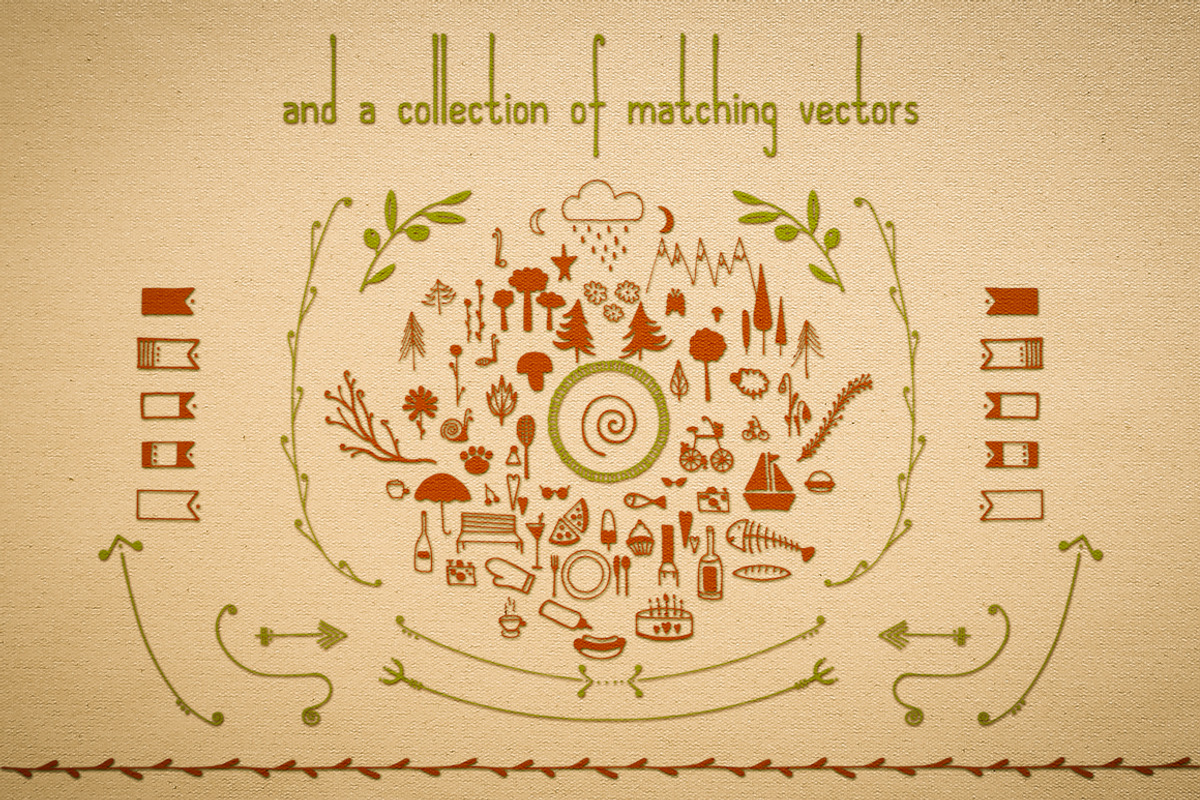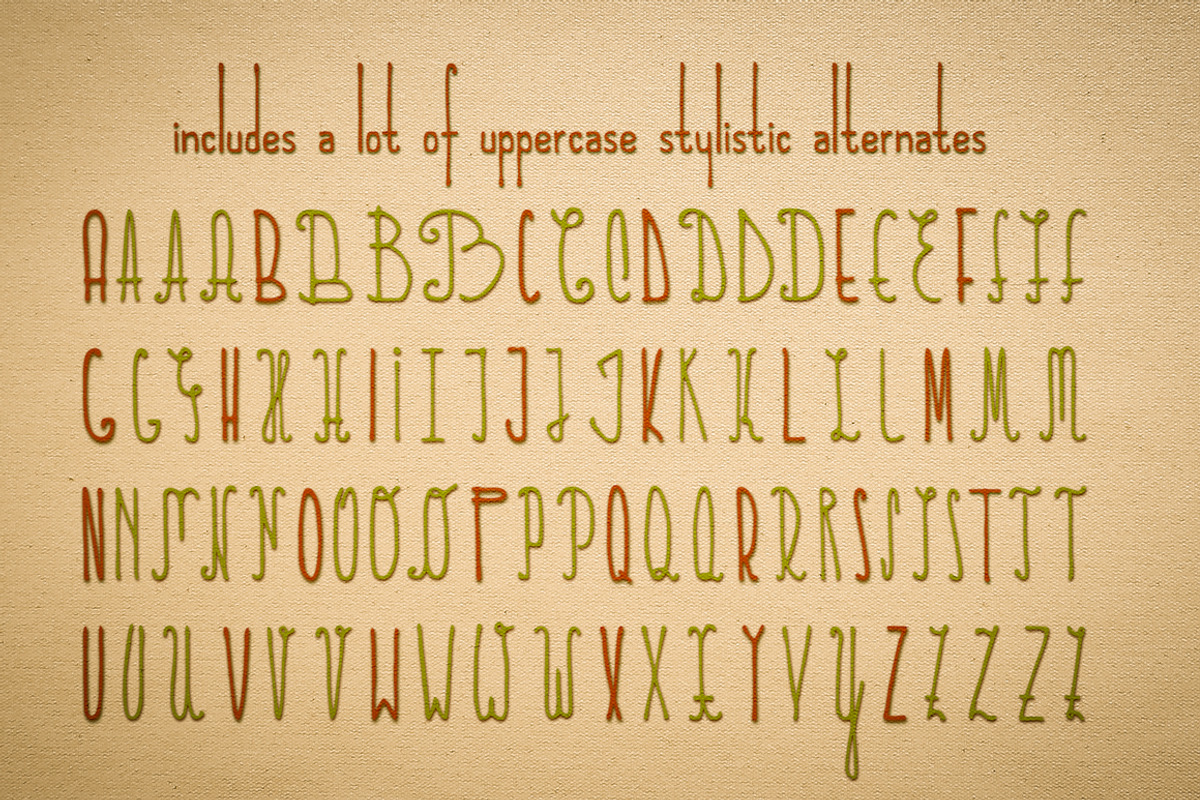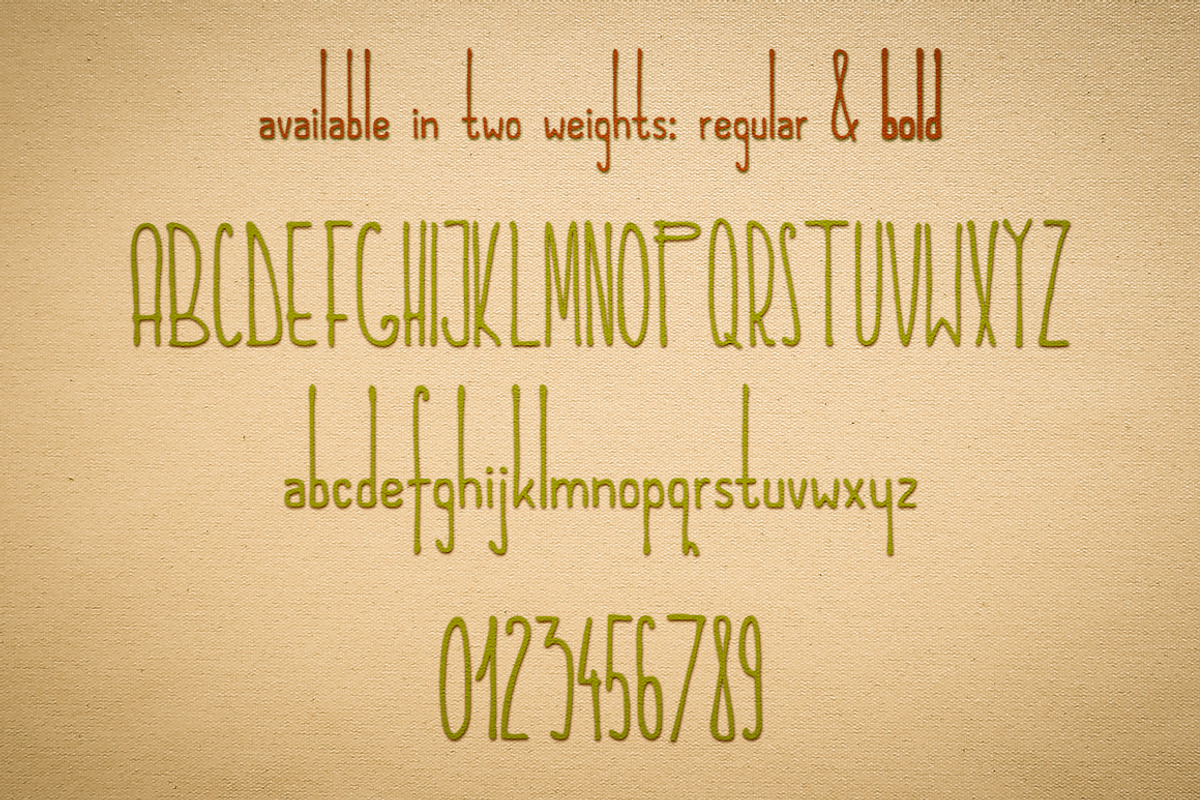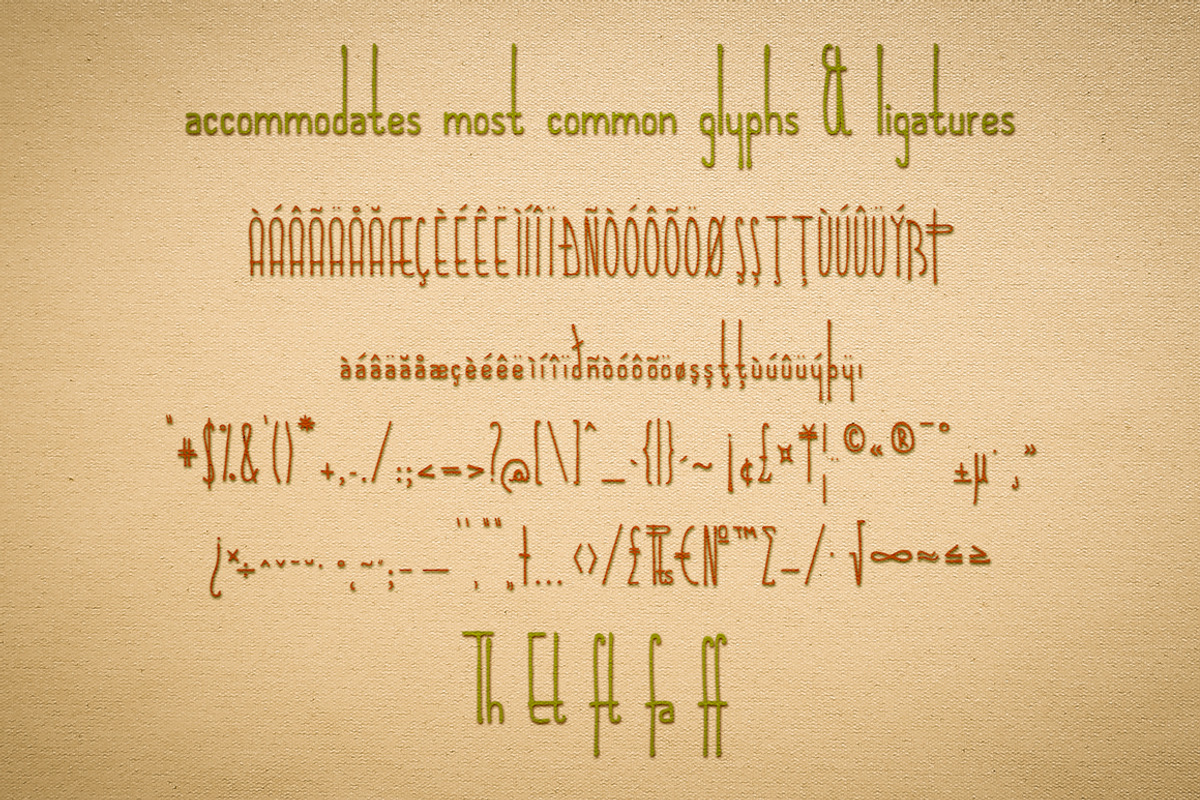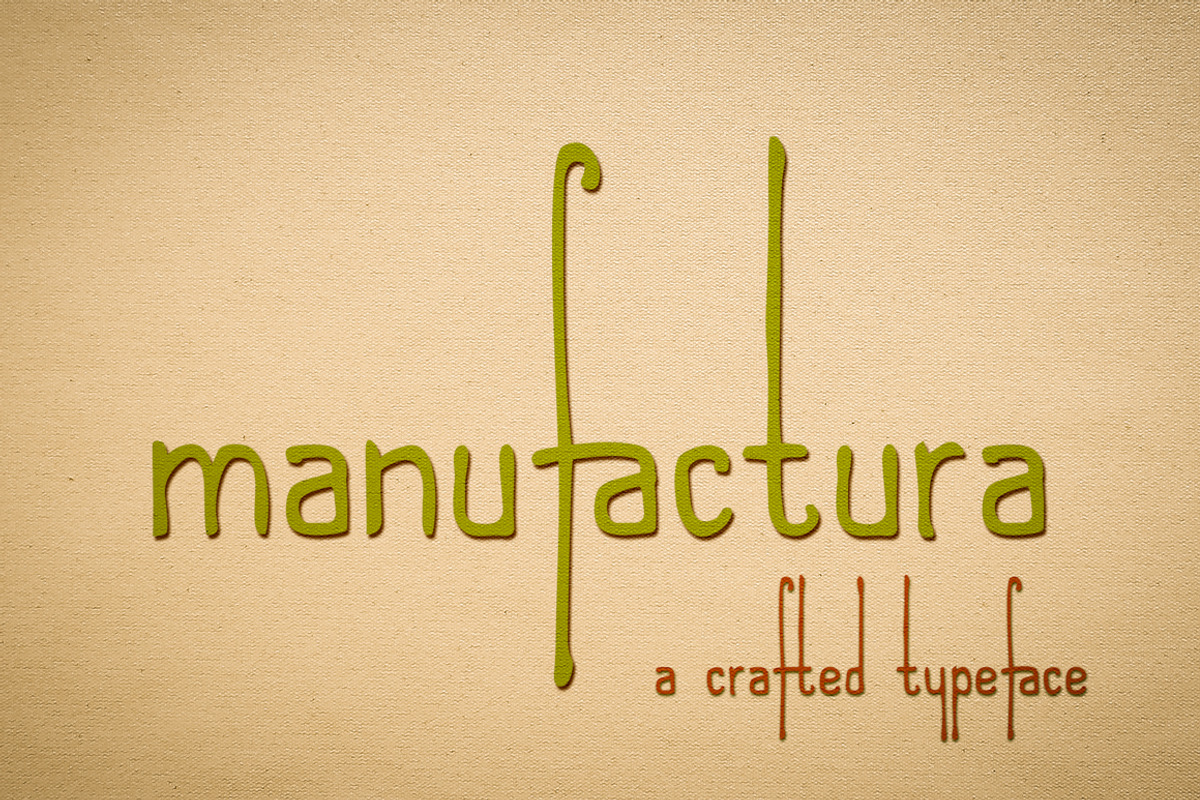
Manufactura - a crafted typeface
Manufactura - a crafted typeface by Monogram is a font selected for branding, posters, packaging, typography.
- It features almost 300 glyphs, supporting most common languages, but also a wide range of uppercase alternatives to give that special look y
Manufactura - a crafted typeface by Monogram fits naturally into Branding, posters, packaging, typography.